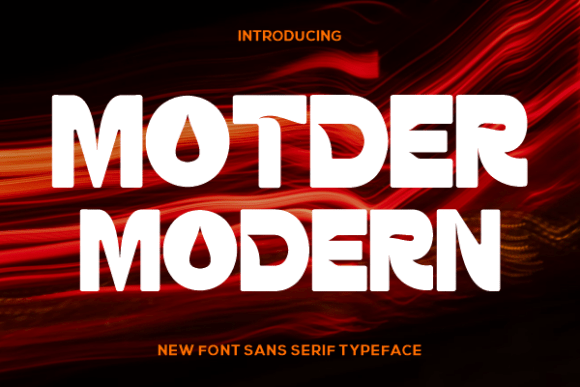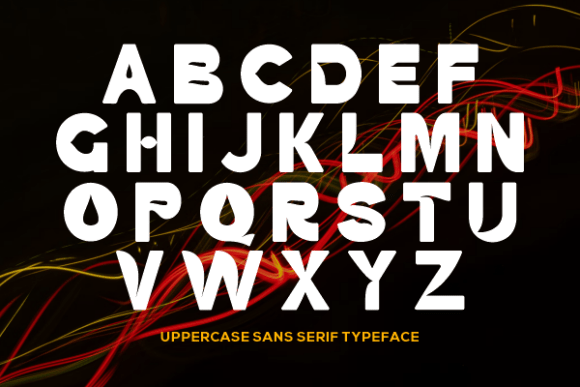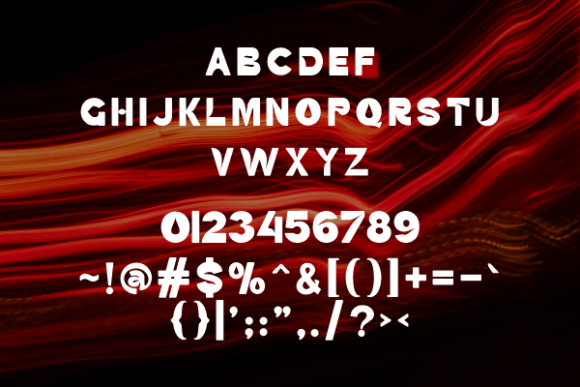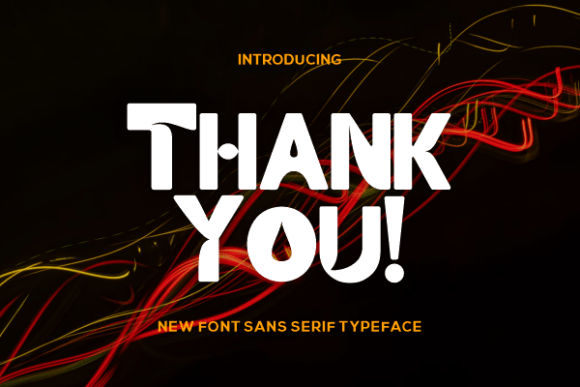
Introduction to Motder Flamer Font
Make a statement with Motder Flamer, a bold and dynamic sans-serif typeface designed for impact.
Featuring thick, rounded letterforms with a futuristic and slightly playful touch, this font is perfect for branding, posters, sports designs, gaming titles, and eye-catching headlines Whether youโre working on a high-energy project or a modern logo, Motder Flamer delivers a powerful and stylish presence.